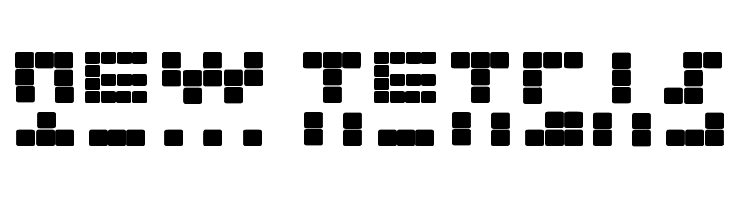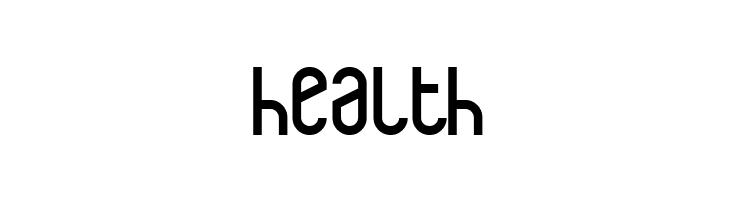
A modern, elegant font with thin strokes and excellent readability.
A rugged, distressed font with a hand-drawn, primitive style.
A bold, geometric font with Art Deco influences, combining modern and vintage elements.
A playful and elegant script font with a handwritten feel.
A modern, geometric font with clean lines and uniform stroke width.
A bold, hand-drawn font with jagged edges and a rugged, artistic style.
A playful, festive font with a handwritten touch, ideal for holiday themes.
A bold, chunky font with a playful, vintage style.
A decorative font with characters embedded in scarab beetle designs.
A playful and dynamic script font with a handwritten appearance.
A bold, angular serif font with a medieval flair.
A playful, bold script font with a hand-drawn, whimsical style.
A clean, handwritten-style font with rounded edges and a slight slant.
A playful handwritten font with fluid, organic letterforms and a casual style.
Expressive illustrated faces form each character in a bold, decorative style.
A bold, geometric font with a 3D effect and modern, tech-inspired design.
A bold, pixelated font with a retro, digital aesthetic.
A modern sans-serif font with geometric letterforms and uniform stroke width.
A playful and artistic font with elongated, curved lines and a modern look.
A playful and elegant script font with flowing, cursive letters.
A display font mimicking famous music band logos with unique, varied letterforms.
Energetic silhouette figures representing fitness and athletic activities.
A playful, hand-drawn font with tall, narrow letters and a whimsical style.
A dynamic, italicized font with sharp, angular strokes and high contrast.
A whimsical, decorative font with looping, swirling strokes and calligraphic flair.
A sophisticated, high-contrast serif font with tall, narrow letterforms.
An elegant script font with flowing, decorative strokes.
A bold, jagged font with a horror-inspired, distressed aesthetic.
A bold, distressed font with a grunge style and rugged appearance.